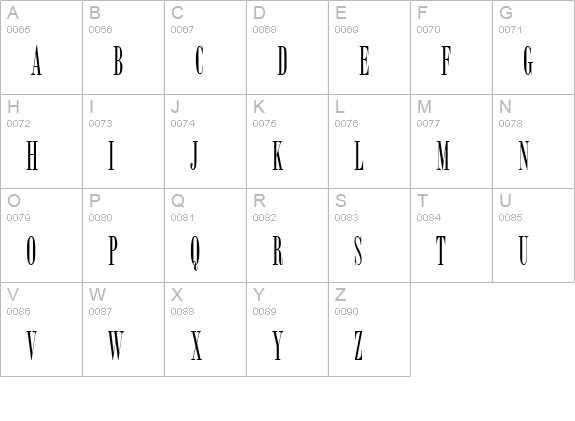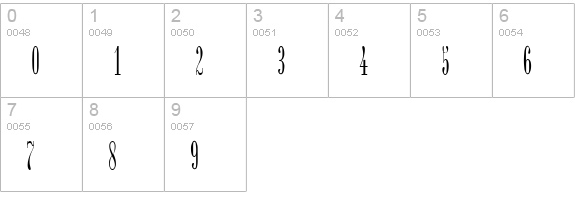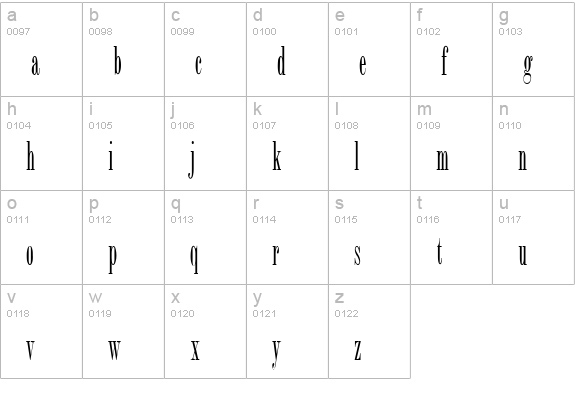
CutterRoman Font Details
CutterRoman font is a modern and stylish typeface that exudes sophistication and elegance. With its clean lines and sharp edges, this font is perfect for adding a touch of class to any design project. Whether you are creating a logo, a website, or a print advertisement, CutterRoman font will make your text stand out and leave a lasting impression. The best part about CutterRoman font is that it is available for free download at FontsMarket.com. This means that you can start using this beautiful typeface in your designs right away, without having to worry about any licensing fees or restrictions. Don't miss out on the opportunity to enhance your projects with the timeless beauty of CutterRoman font – download it today and see the difference it can make!